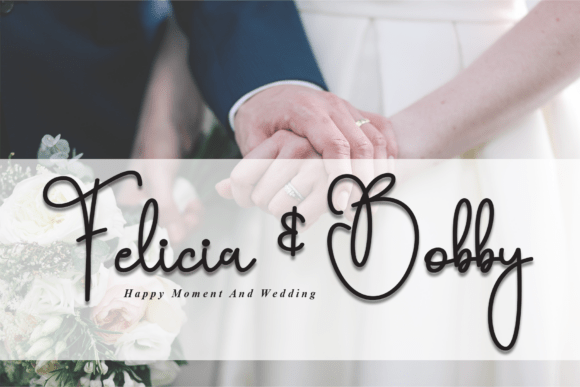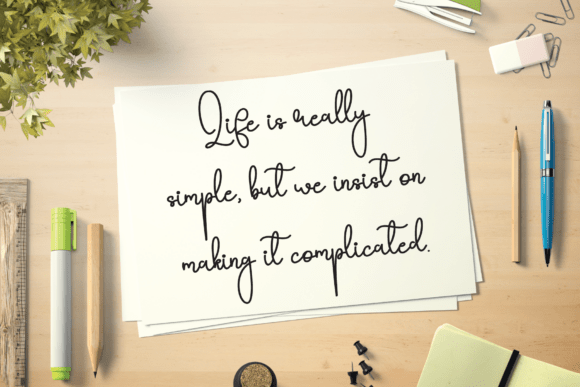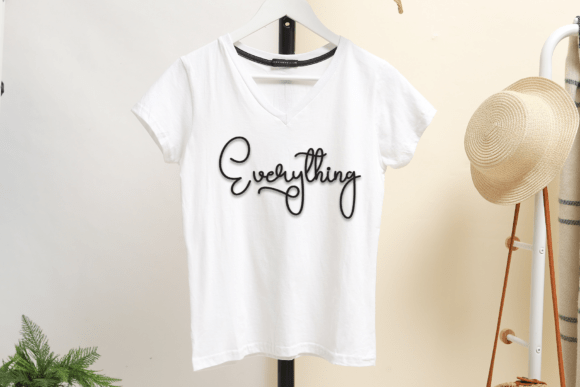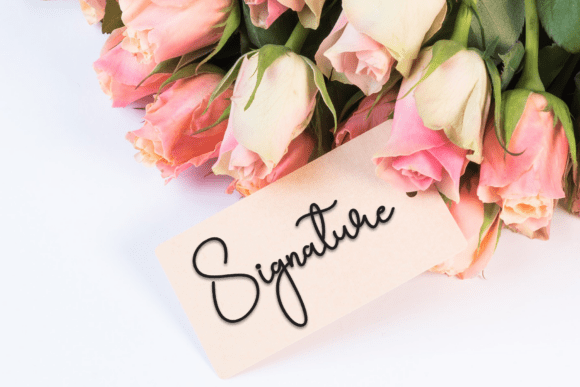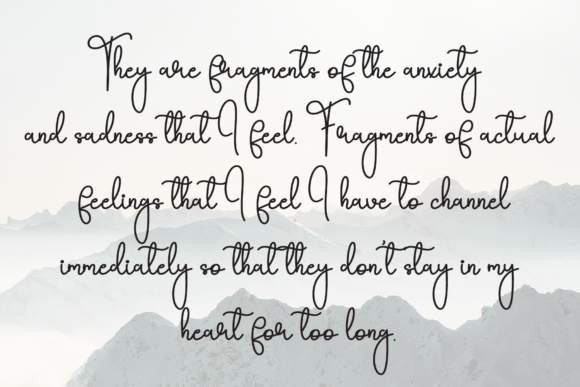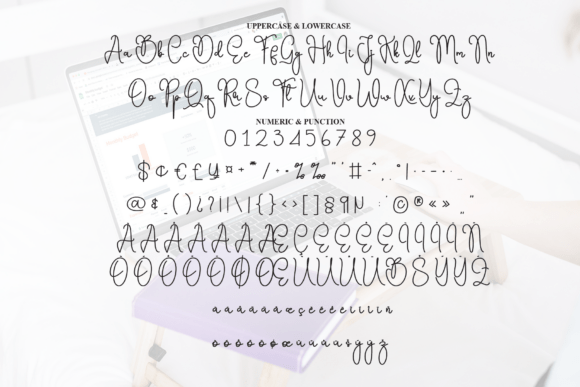
Introducing Budget Font: Elevate Your Designs with Elegance and Playfulness
In the world of typography, fonts play a crucial role in conveying the tone and personality of a design. For designers and crafters looking to add a touch of sophistication and whimsy to their projects, Budget Font is an excellent choice. This stylish handwritten script font seamlessly blends modern elegance with a playful touch, making it perfect for a wide range of applications.
The Charm of Budget Font
Budget Font boasts fluid strokes and charming curves that bring a personal feel to any design. Its unique blend of modernity and playfulness makes it an ideal choice for designers looking to create something truly special. Whether you’re working on a logo, packaging, or invitation, this typeface adds warmth, sophistication, and creativity to every project.
Key Features of Budget Font
- Handwritten Script Style: Budget Font features a beautiful handwritten script style that adds a personal touch to any design.
- Modern Elegance: With its fluid strokes and charming curves, this font exudes modern elegance and sophistication.
- Playful Touch: The playful touch in Budget Font makes it perfect for designs that require a bit of whimsy and fun.
- Versatile: This font is ideal for a wide range of applications, including logos, packaging, invitations, and more.
Uses of Budget Font
Budget Font is an incredibly versatile typeface that can be used in various design projects. Here are some of the most popular uses of this font:
- Logo Design: Create a memorable and stylish logo for your brand with Budget Font.
- Packaging Design: Add a touch of elegance and sophistication to your product packaging with this beautiful font.
- Invitation Design: Make your invitations stand out with the charming and playful feel of Budget Font.
- Social Media Graphics: Use Budget Font to create engaging and stylish social media graphics that capture your audience’s attention.
Benefits of Using Budget Font
There are several benefits to using Budget Font in your design projects. Here are a few:
- Unique and Creative: Budget Font offers a unique and creative way to express your brand’s personality.
- Elegant and Sophisticated: This font adds a touch of elegance and sophistication to any design.
- Easy to Read: Budget Font is easy to read, making it perfect for body text and headings.
- Customizable: You can customize Budget Font to fit your brand’s style and personality.
Tips for Using Budget Font Effectively
Here are some tips for using Budget Font effectively in your design projects:
- Pair with Other Fonts: Pair Budget Font with other fonts to create a unique and visually appealing typography.
- Use in Headings and Titles: Use Budget Font in headings and titles to add a touch of elegance and sophistication.
- Experiment with Colors: Experiment with different colors to find the perfect combination that matches your brand’s style.
- Keep it Simple: Keep your design simple and clean to let Budget Font shine.
In conclusion, Budget Font is a stylish and versatile typeface that can elevate your designs with its modern elegance and playful touch. With its fluid strokes and charming curves, this font is perfect for designers and crafters looking to add a personal feel to their projects. Whether you’re working on a logo, packaging, or invitation, Budget Font is an excellent choice.